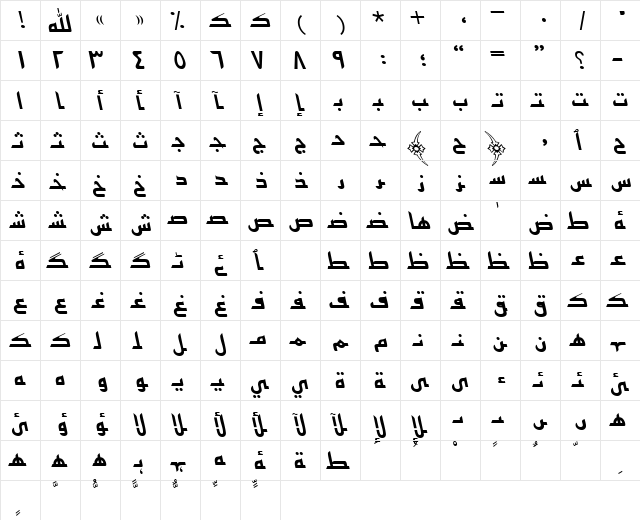
UrduKufiSSK Italic Font Preview
UrduKufiSSK Italic
UrduKufiSSK Italic Font Details
Design Context for UrduKufiSSK Typeface
UrduKufiSSK is a composed and adaptable typeface that performs quietly and consistently across a wide range of design contexts. The slanted form adds forward momentum and visual energy.